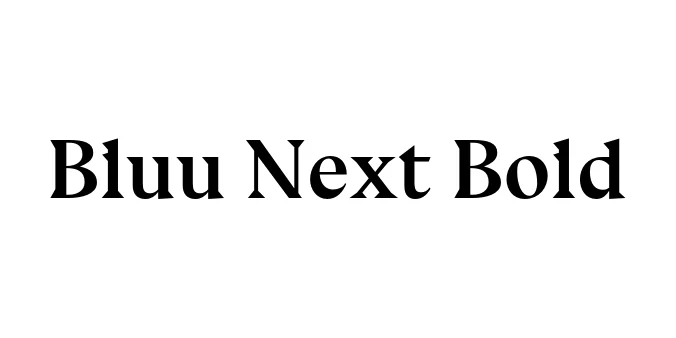
Bluu Next Bold
Designed by Jean-Baptiste Morizot
| Similar Fonts | Larish Neue, Ogg, Plantin, Times New Roman (Bold Display) |
Bluu Next Bold is a sharp and expressive wedge-serif typeface designed by Jean-Baptiste Morizot. Originally released through the Velvetyne Type Foundry, it serves as a more refined and aggressive successor to the designer's previous project, Bluu. This font is characterized by its high contrast, tight apertures, and extremely sharp, triangular terminals, making it a standout choice for contemporary display typography that demands attention.
The typeface gained significant popularity in the independent publishing and graphic design scene due to its brutalist yet elegant aesthetic. It effectively bridges the gap between classical serif structures and modern, edgy design sensibilities. Because it is released under an open-source license, it has become a staple for designers looking for a high-quality, professional serif with a distinct personality that works across both print and digital mediums.
Bluu Next Bold Best Uses
Perfect for striking magazine layouts and sophisticated article headings.
Ideal for creating a strong, authoritative brand identity with a modern edge.
Works exceptionally well for bold titles that need to command attention on a shelf.
Adds a professional and artistic touch to website landing pages and hero sections.